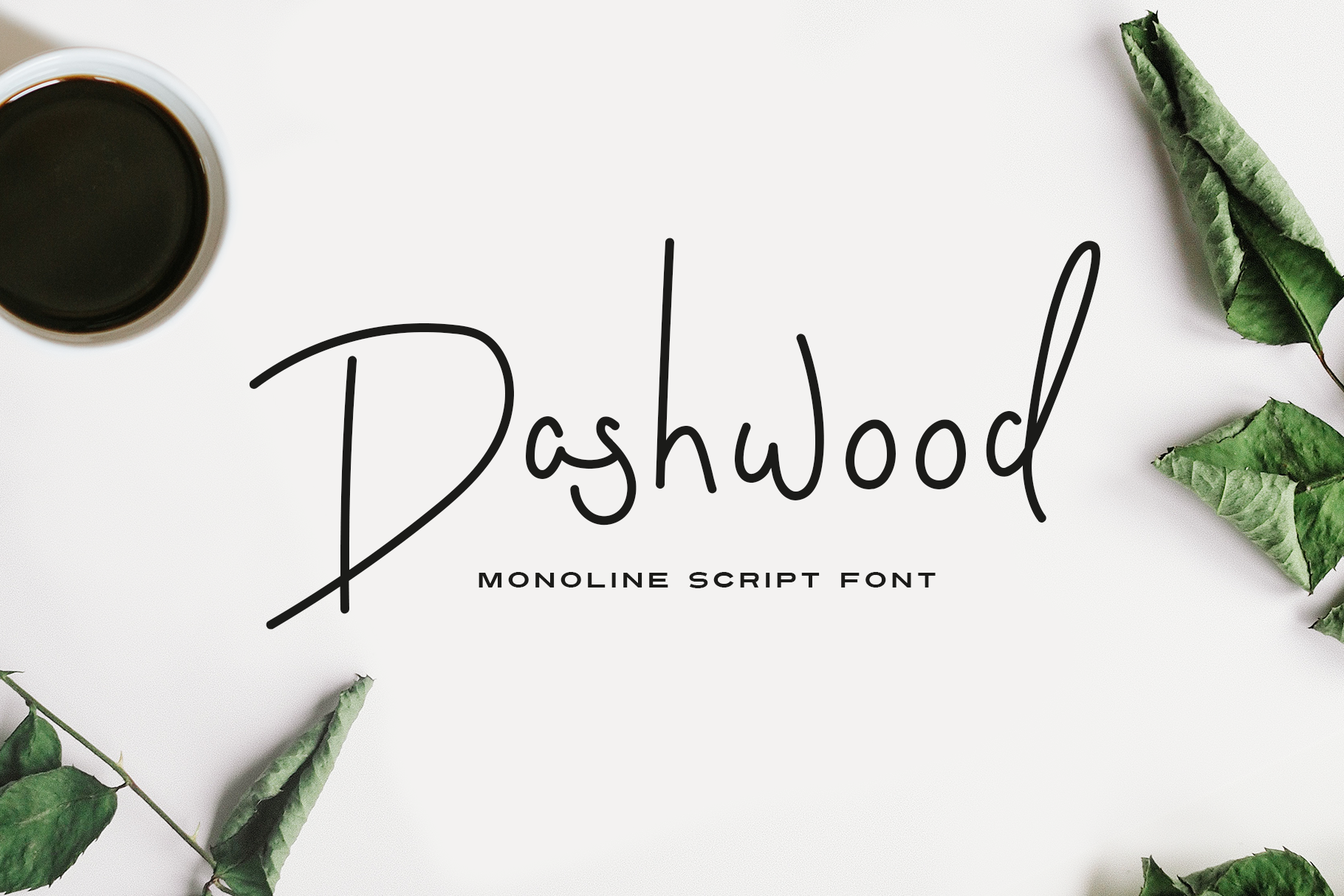
Dashwood Font
Dashwood is a monoline script font drawn by hand. With a natural, relaxed flow Dashwood is great for personal branding projects, creating signatures and watermarks. Dashwood sits nicely alongside other fonts to create branding, handwritten quotes, wedding invites and more.
DASHWOOD USES
- Logos
- Branding
- Menus
- Headlines
- Signatures
- Watermarks
- Wedding invites
- Quotes